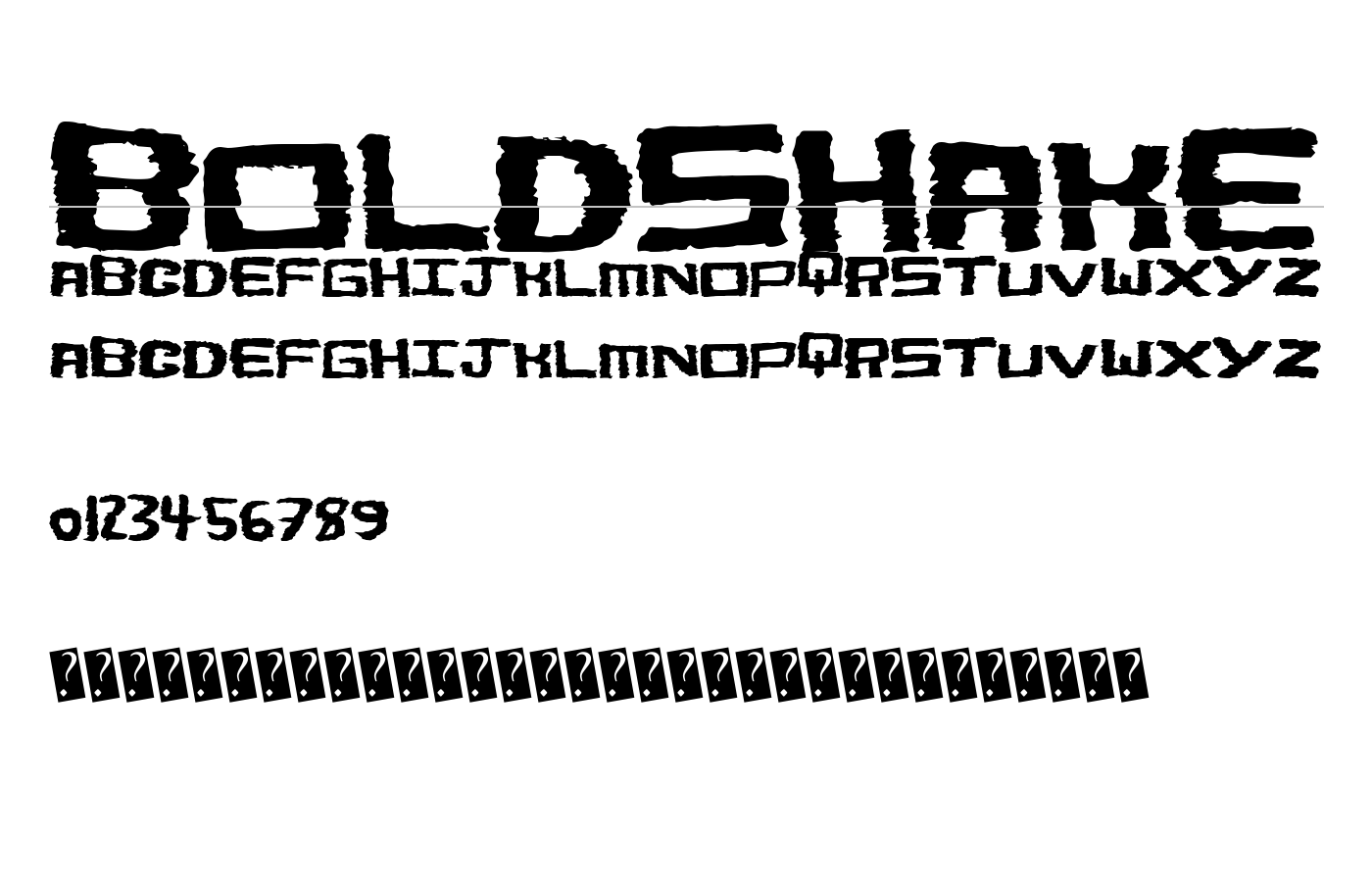
BoldShake is a bold, uppercase sans serif font with a rough, distressed texture that gives it a dynamic and edgy personality. Its irregular, jagged edges and uneven stroke widths create an energetic, hand-crafted feel, making it ideal for eye-catching headlines, posters, and branding projects that want to evoke a sense of intensity and originality. This font works best where loud, informal, or rebellious moods are needed, standing out with its strong visual impact and artistic rawness.
BoldShake Font
About BoldShake Font
| Font family | BoldShake Font |
| Designer | Max Infeld |